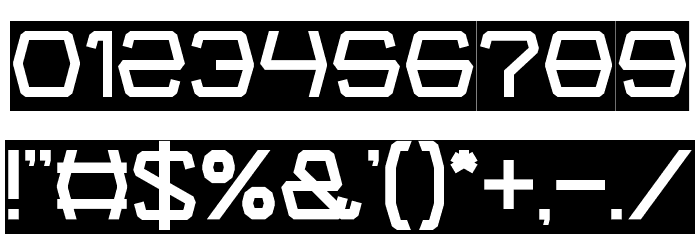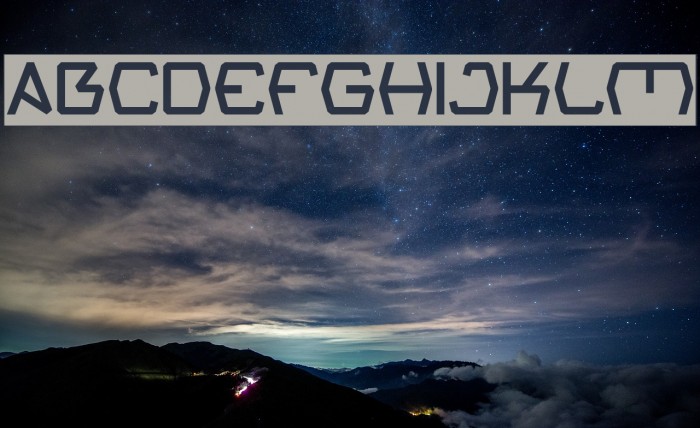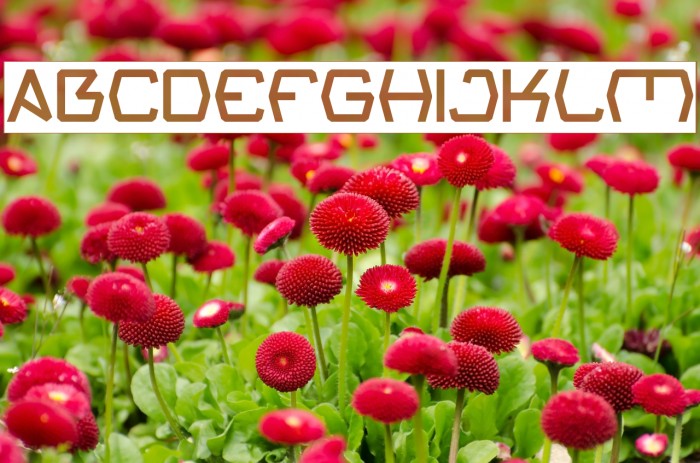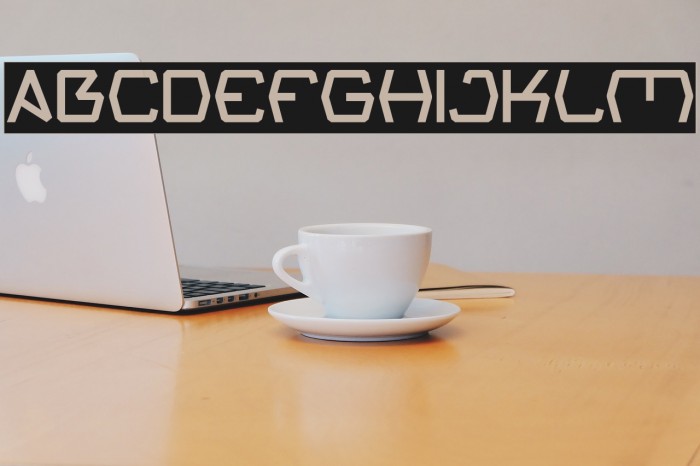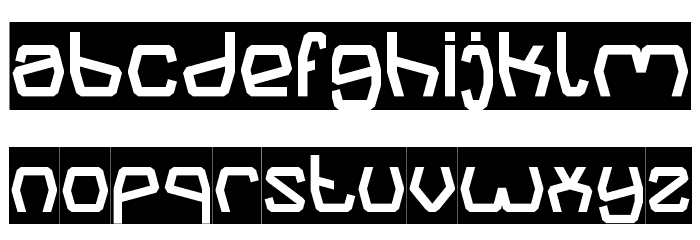
Groovy Kind Of Life-Inverse Font
Groovy Kind Of Life-Inverse Description
This font features a bold, geometric design with a distinctively modern and futuristic aesthetic. The characters are constructed with sharp angles and a consistent thickness, giving them a strong, impactful presence. The uppercase and lowercase letters maintain a cohesive style, with the lowercase slightly smaller but equally bold. Numbers and special characters follow the same geometric pattern, ensuring uniformity across all glyphs. The font's unique style makes it stand out, with a playful yet structured appearance that is both eye-catching and versatile.
A bold, geometric font with a modern, futuristic style from Uncategorized fonts.
- Proposed Projects: Ideal for projects that require a modern and edgy look, such as tech branding, video game titles, or futuristic event posters.